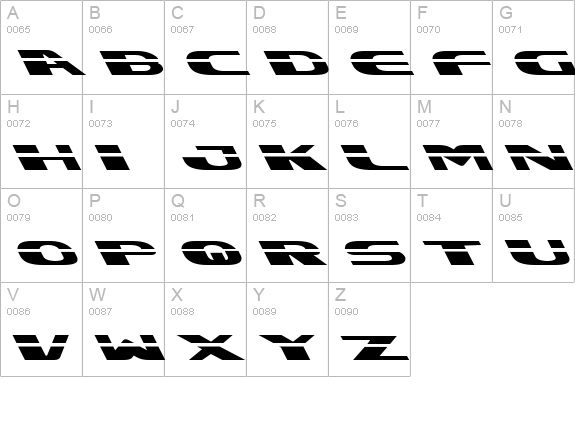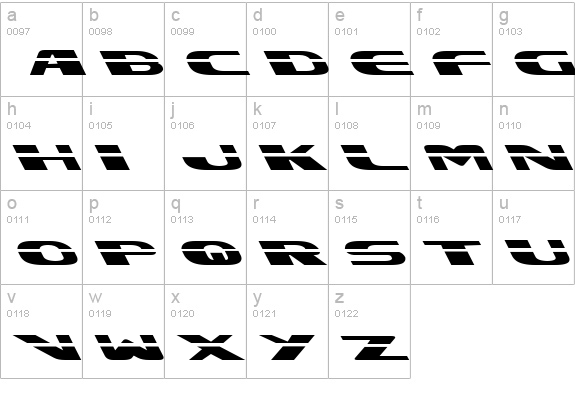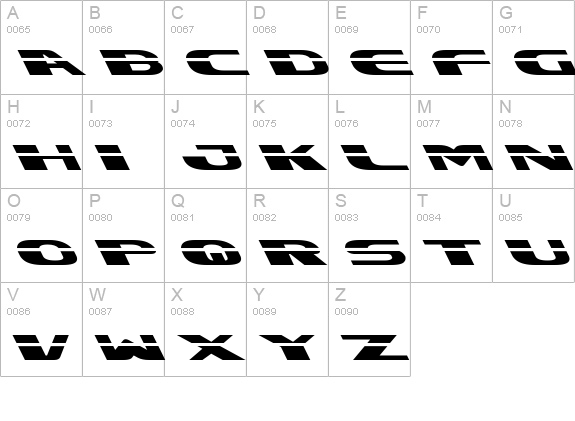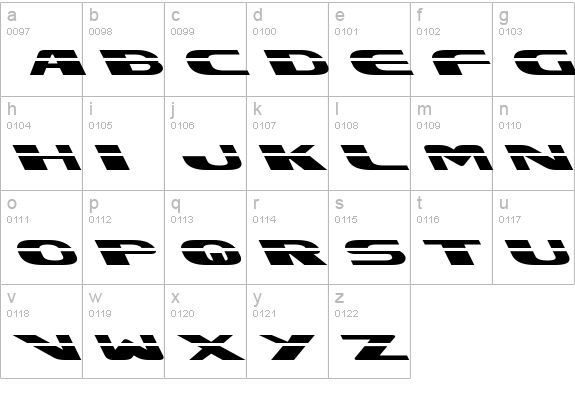
Excelerate Left Font Details
Excelerate Left font is a modern and stylish typeface that exudes a sense of speed and dynamism. With its sleek lines and sharp edges, this font is perfect for adding a contemporary touch to any design project. Whether you're creating posters, flyers, or digital graphics, Excelerate Left will make your text stand out with its bold and impactful look. The best part? Excelerate Left font is available for free download at FontsMarket.com. You can easily access this font and use it in your personal and commercial projects without any restrictions. Don't miss out on this opportunity to enhance your designs with the eye-catching Excelerate Left font today!